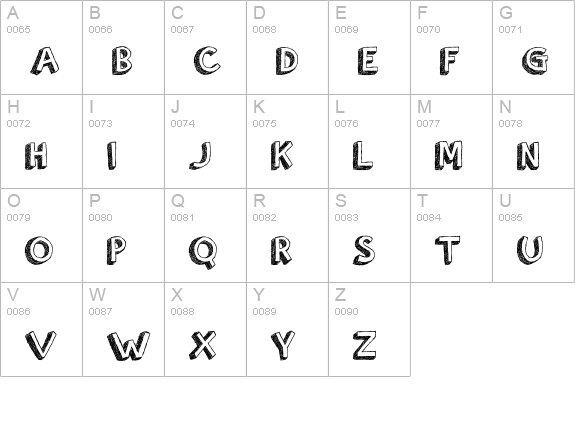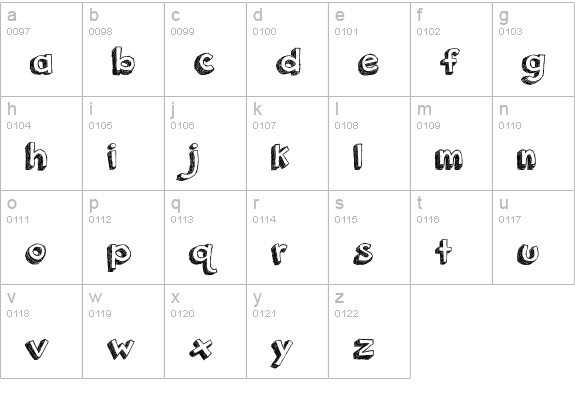
orange juice Font Details
orange juice is a free for personal use font in the Fancy > 3D category. It has been downloaded 254 times and is available for Windows, Mac and Linux.
Introducing the mesmerizing Orange Juice font, a delightful typographic masterpiece that is sure to quench your thirst for creativity! This font is a refreshing blend of boldness and elegance, exuding a vibrant energy that will captivate any audience. With its playful curves and juicy strokes, Orange Juice font adds a tangy twist to your designs, injecting them with a burst of zest and vitality. Its smooth and fluid letterforms are reminiscent of freshly squeezed oranges, evoking a sense of freshness and positivity. Whether you're designing a logo, packaging, or a poster, Orange Juice font will bring a delightful pop of color and personality to your project. Its versatility makes it a perfect choice for a wide range of applications, from food and beverage branding to playful children's books. But what makes Orange Juice font even more enticing is that it is freely available to download at FontsMarket.com. Yes, you heard it right - this refreshing font is just a click away! No more worrying about expensive licensing fees or limited usage. You can now enjoy the freedom of using Orange Juice font in all your personal and commercial projects without any restrictions. So go ahead, quench your thirst for exceptional typography with Orange Juice font. Let its vibrant and invigorating presence rejuvenate your designs and leave a lasting impression on your audience. Download it now from FontsMarket.com and add a splash of zest to your creative endeavors!